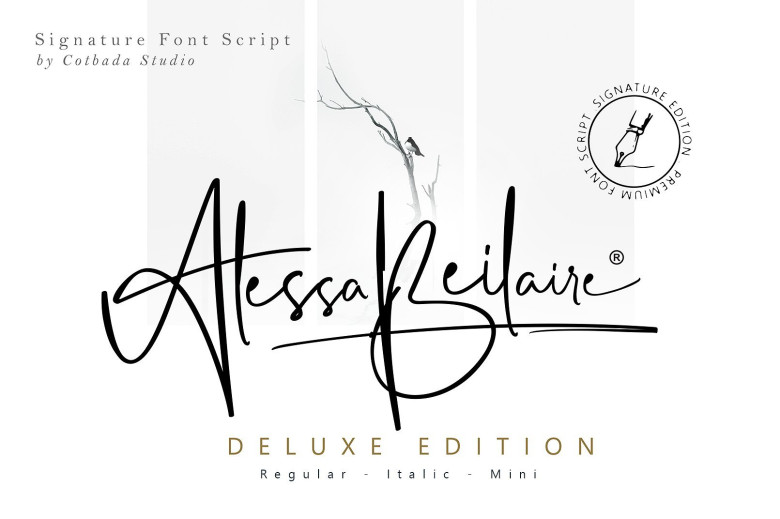
Alessa Beilaire Deluxe Edition Font
Today is the first day of the new year 2019. I still continue to share with you high quality fonts. Wish you luck in every job! Introducing the new signature font, Alessa Beilaire Font! Alessa Beilaire is a simple and classy font, comes with 3 Elegant Variations, opentype features such as stylistic alternates,initial and final form, and ligatures. Alessa Beilaire Deluxe Edition Font is the great choice for watermark on photography, signature or signature logo design, quotes, album cover, business card, and many other design project. From business cards to photo watermarks, Alessa Beilaire Deluxe Edition is here to elevate your work to the highest level.